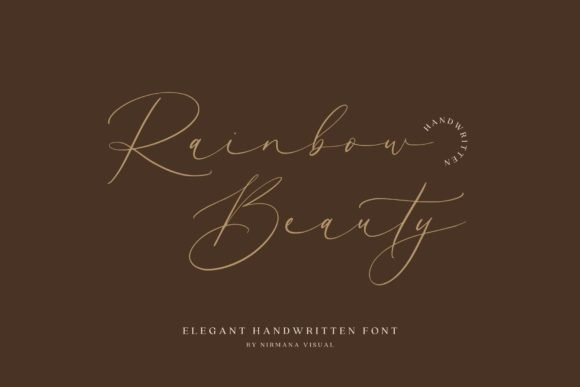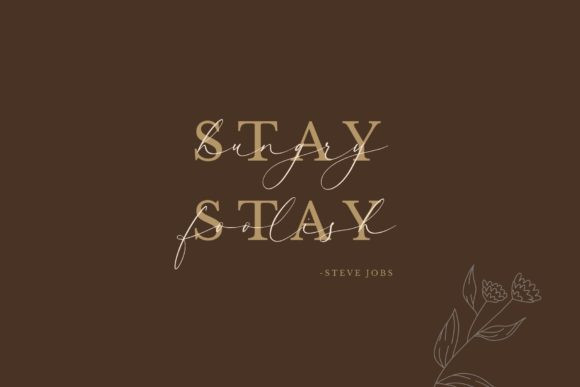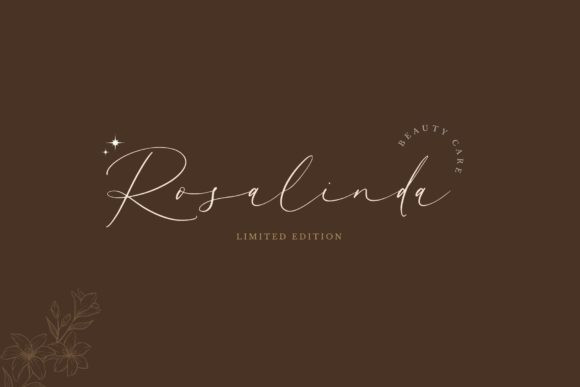
Rainbow Beauty Font
Rainbow Beauty is a chic, refined script font that emanates sophistication and elegance. Its stylish alternates and ligatures make this font the perfect match for any project.